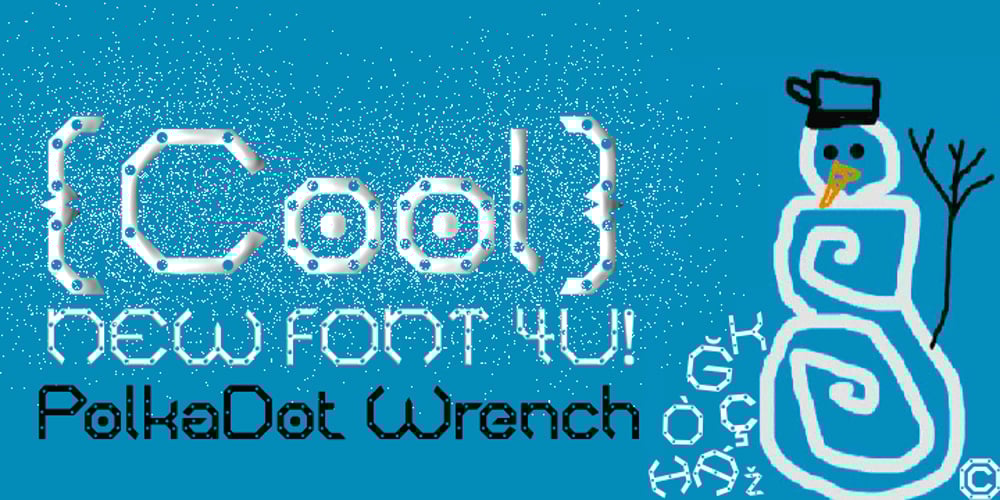
PolkaDot Wrench
PolkaDot Wrench font
PolkaDot Wrench Font Family was designed by Denise Koehler and published by Deniart Systems. PolkaDot Wrench contains 1 styles and family package options. An eye-catching modern, angular design with a little dottiness to add a wee bit of naughtiness to your designs. This font is a partner to PocketWrench and both can be used to complement each other in your designs. This typeface features over 90 extended characters for setting European languages such as Czech, Danish, Dutch, Esperanto, Finnish, French, German, Italian, Hungarian, Polish, Portuguese, Romanian, Spanish, Swedish, Turkish & Welsh.